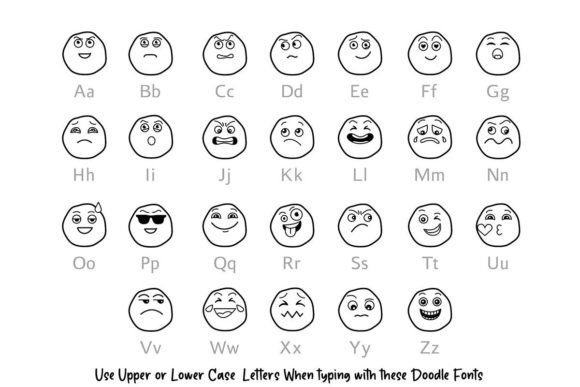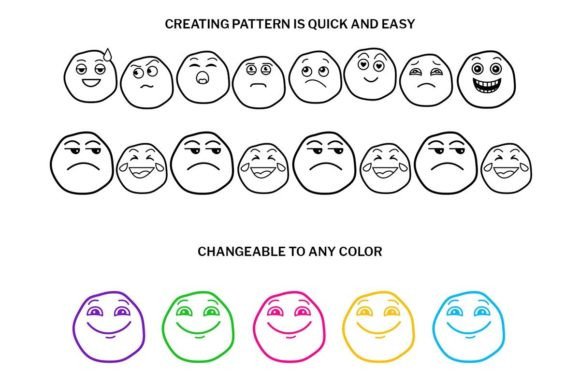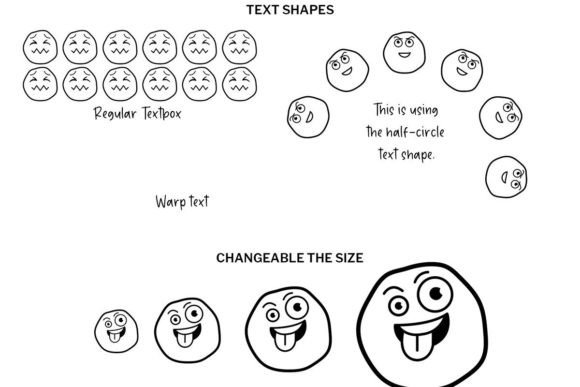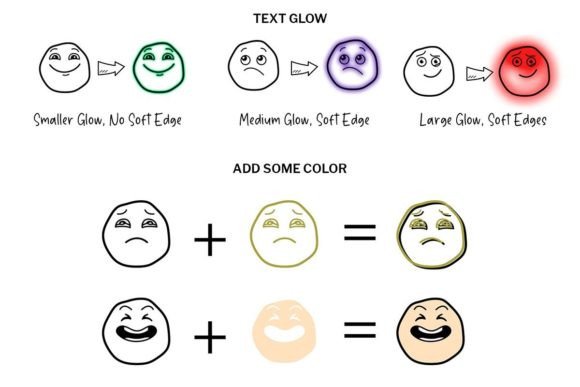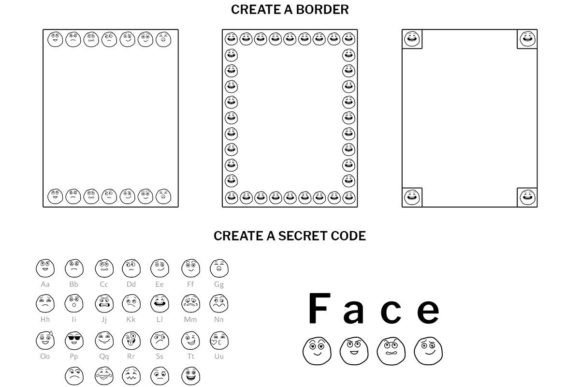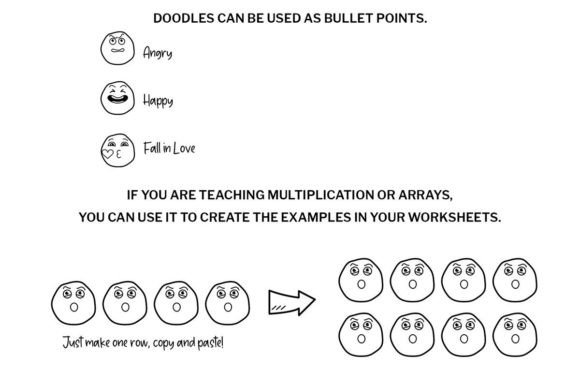
Introducing Face Doodle Font: The Ultimate Dingbat for Creative Projects
Are you a designer, crafter, or DIY enthusiast looking for a fun and versatile font to elevate your creative projects? Look no further than Face Doodle Font! This delightful dingbat font is perfect for a wide range of applications, from craft projects and designs to planners, diaries, activity books, and more.
What is Face Doodle Font?
Face Doodle Font is a unique and charming dingbat font that features a collection of adorable faces, expressions, and emotions. Its playful and whimsical design makes it an excellent choice for projects that require a touch of personality and fun. Whether you’re creating a handmade card, a customized planner, or a children’s activity book, Face Doodle Font is sure to bring a smile to your audience’s faces.
One of the standout features of Face Doodle Font is its incredible versatility. This font can be used in a multitude of creative projects, including:
- Craft projects: Add a personal touch to your handmade crafts, such as cards, gift tags, and scrapbook pages.
- Designs: Use Face Doodle Font to create eye-catching graphics, posters, and flyers.
- Planners and diaries: Add a dash of personality to your planners, journals, and diaries.
- Activity books: Create engaging and interactive activity books for kids, featuring Face Doodle Font’s adorable characters.
- Stationery and gift wrap: Use the font to create custom stationery, gift wrap, and gift tags.
Why Choose Face Doodle Font?
So, what sets Face Doodle Font apart from other dingbat fonts? Here are just a few reasons why designers and crafters love this font:
- Unique and playful design: Face Doodle Font features a one-of-a-kind design that’s sure to capture your audience’s attention.
- Easily customizable: The font is highly customizable, allowing you to adjust the size, color, and style to suit your project’s needs.
- Wide range of uses: As mentioned earlier, Face Doodle Font is incredibly versatile and can be used in a variety of creative projects.
- Fun and engaging: The font’s playful design is sure to add a touch of fun and whimsy to your projects.
Tips for Using Face Doodle Font
To get the most out of Face Doodle Font, here are a few tips to keep in mind:
- Experiment with different sizes and colors: Don’t be afraid to try out different sizes and colors to add visual interest to your projects.
- Combine with other fonts: Pair Face Doodle Font with other fonts to create a unique and eye-catching design.
- Use in combination with images: Combine the font with images or illustrations to create a visually appealing design.
- Have fun!: Most importantly, have fun with Face Doodle Font! The font’s playful design is perfect for adding a touch of personality to your projects.
Face Doodle Font is a fun, versatile, and adorable dingbat font that’s perfect for designers, crafters, and DIY enthusiasts. Its unique design and wide range of uses make it an excellent choice for a variety of creative projects. Whether you’re creating a handmade card, a customized planner, or a children’s activity book, Face Doodle Font is sure to bring a touch of personality and fun to your designs. So why not give it a try and see what amazing creations you can come up with?